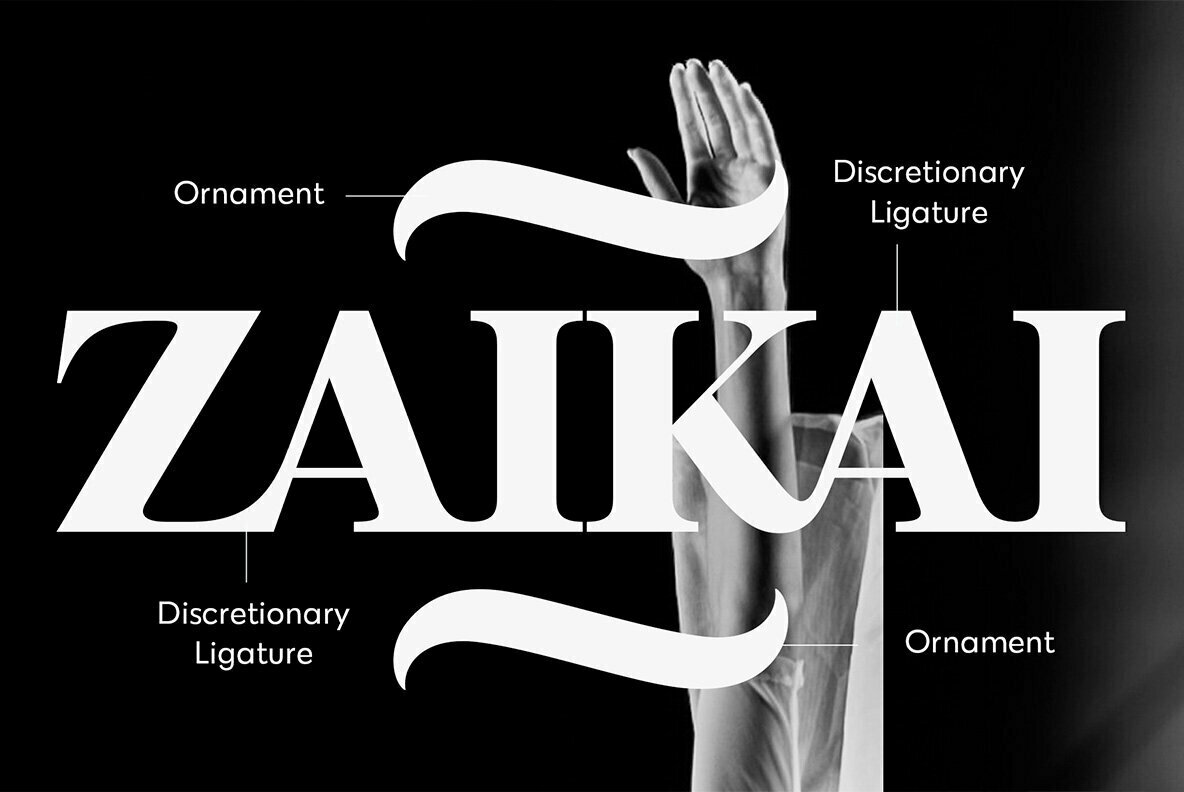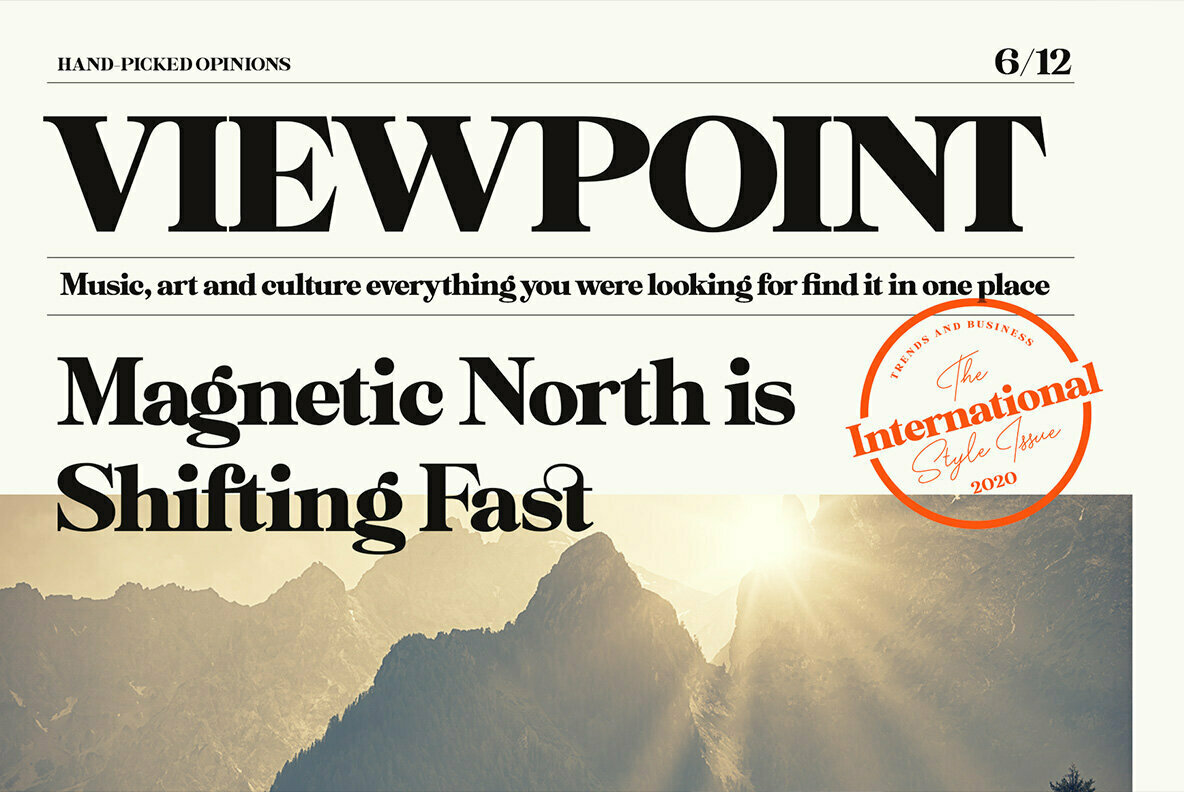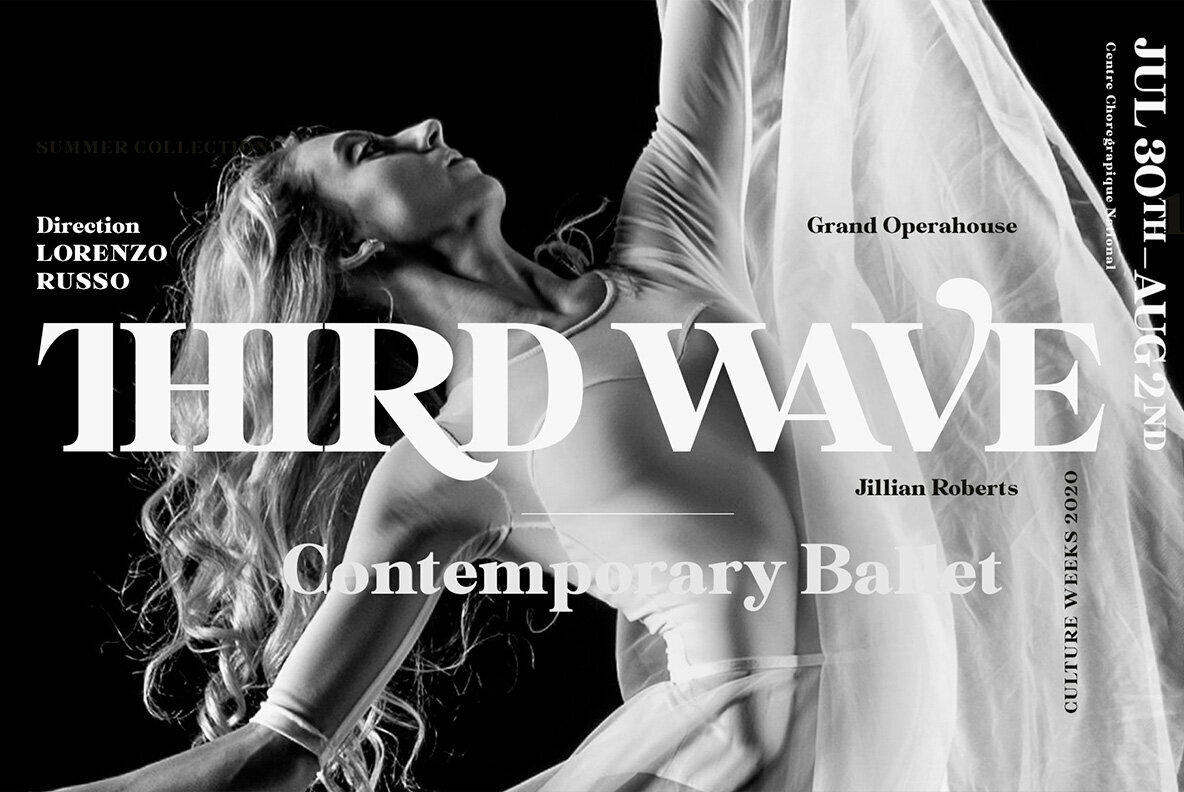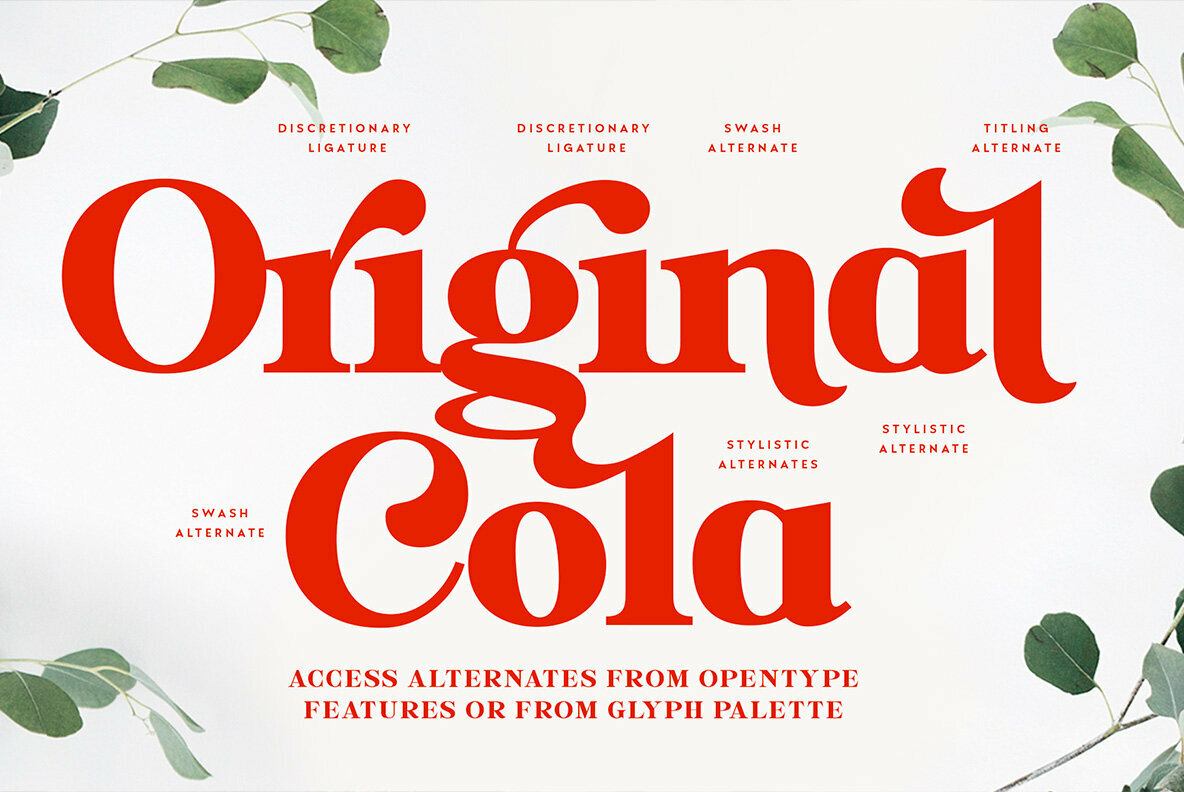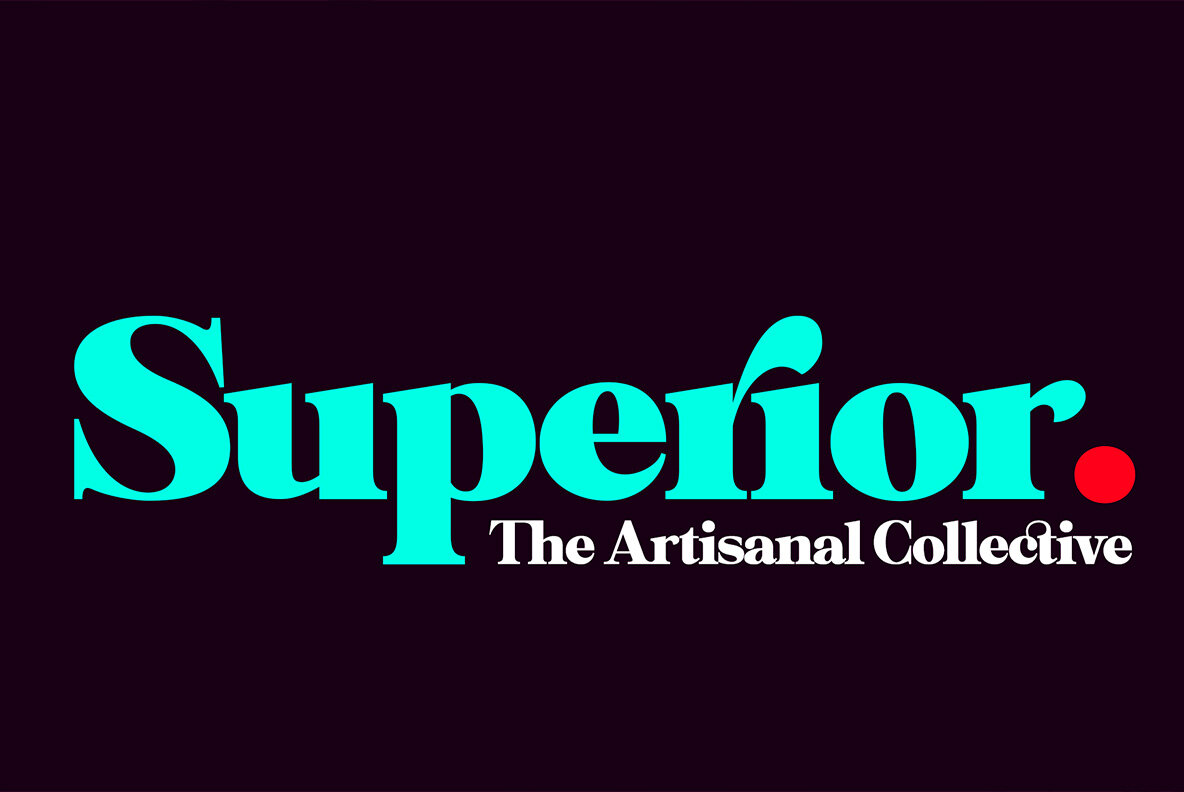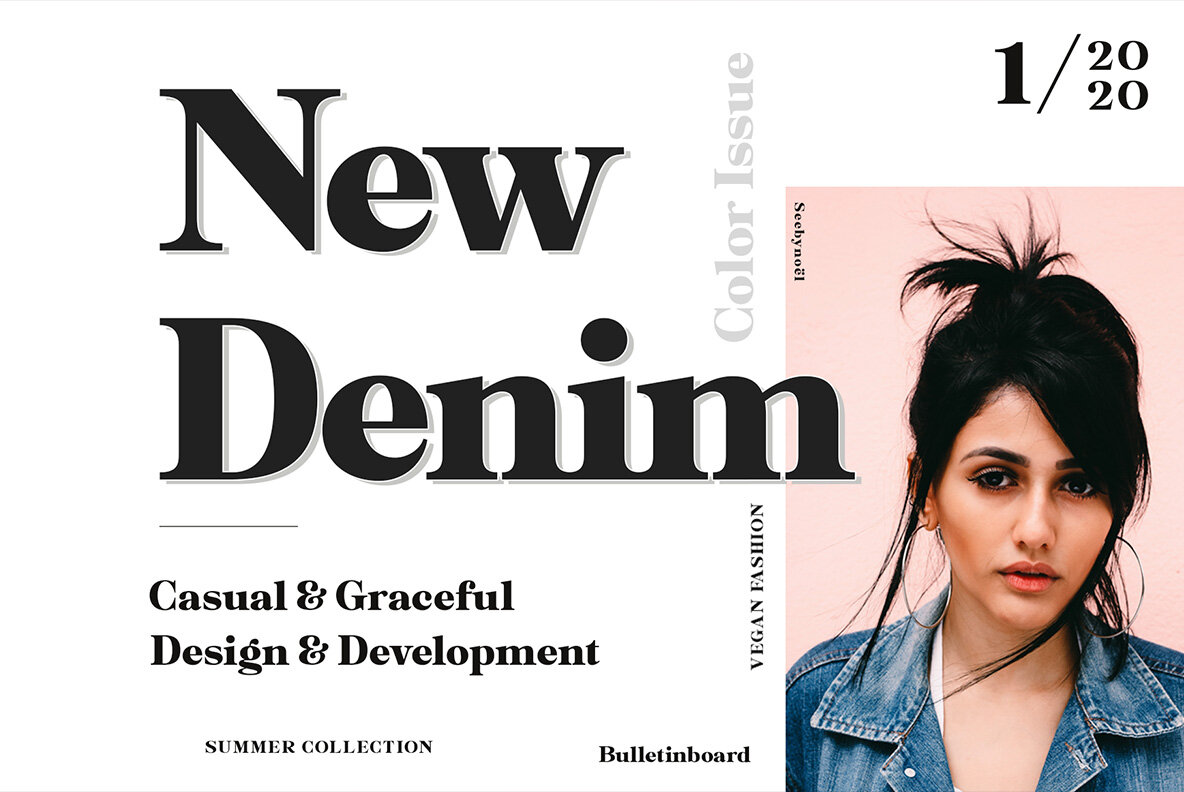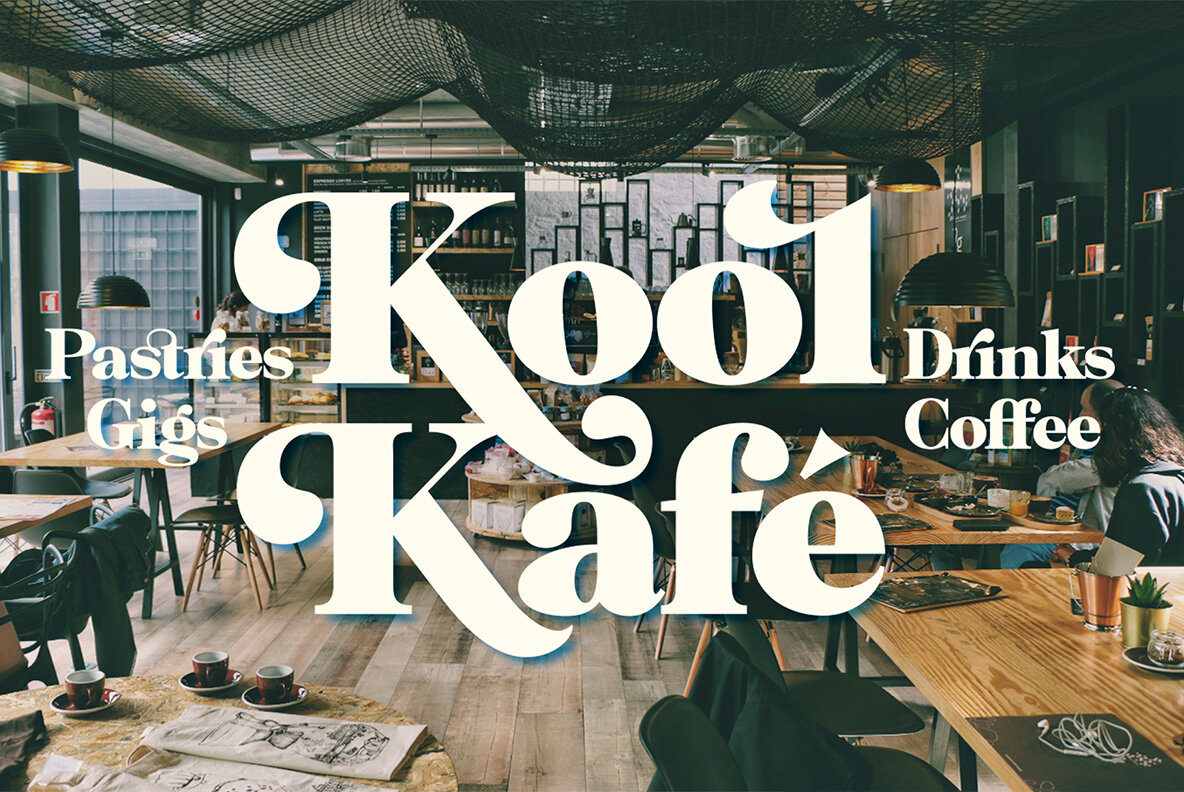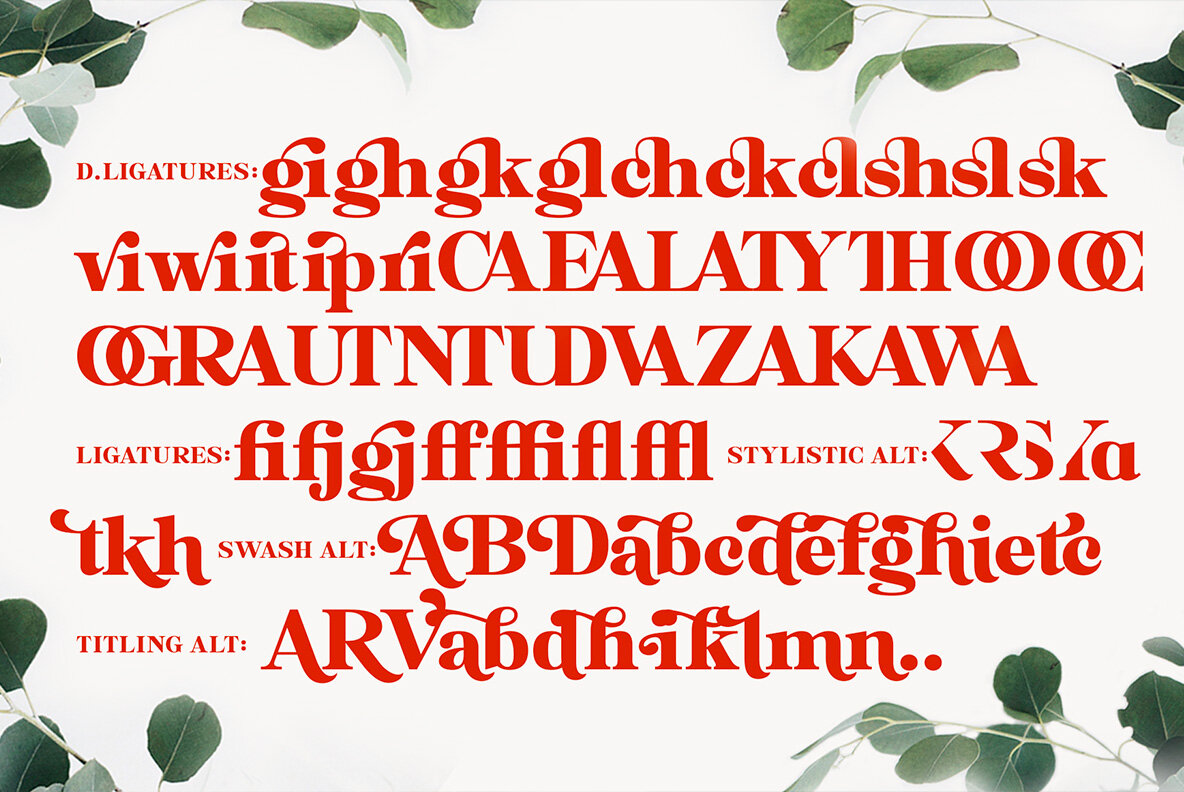
Felicity Font
Felicity Regular
Felicity Bold
Felicity is a tightly cut heavyweight display serif. Felicity has strict kerning and it creates strong looking words just by typing - but if you need even more try any of Felicity’s many OpenType features: Discretionary Ligatures, Stylistic, Titling or Swash Alternates. Felicity has also a small selection of ornaments you can from the Character Window.
Felicity is also equipped with Contextual Alternates and Standard Ligatures that prevents letters from colliding. Both features are automatically on.